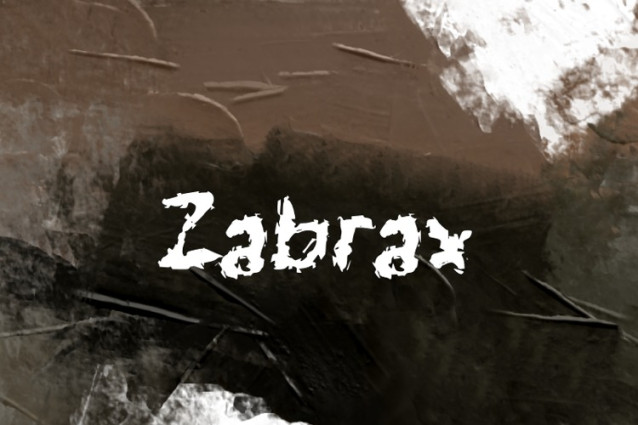
Zabrax Font
Zabrax Font is a handwritten/brushed typeface: The characters appear to be handwritten or painted with a brush, giving a rough and uneven feel. The edges of the letters do not have sharp, imperfect lines, creating a grunge effect. The width of the strokes is inconsistent, adding a natural and handmade style. This font points up a dynamic, individual feel and can be used to create a strong impression or an edgy style.